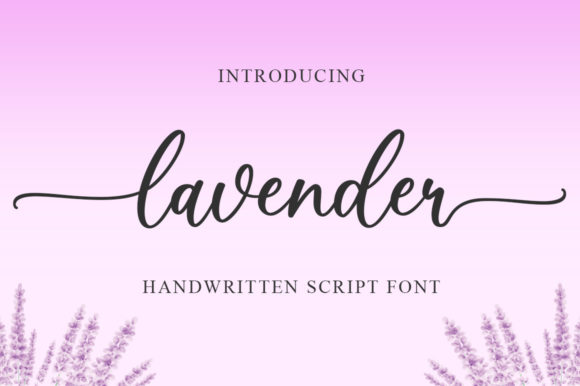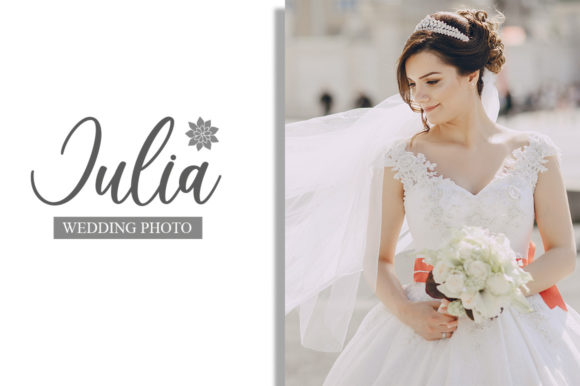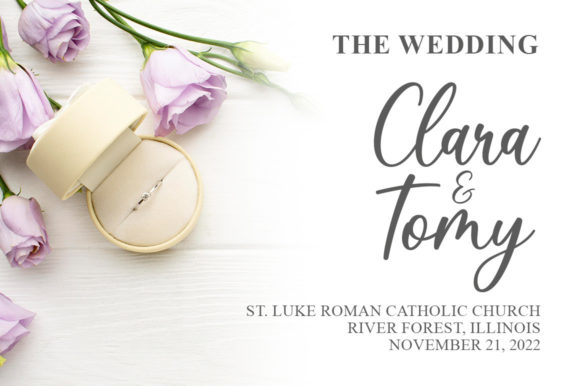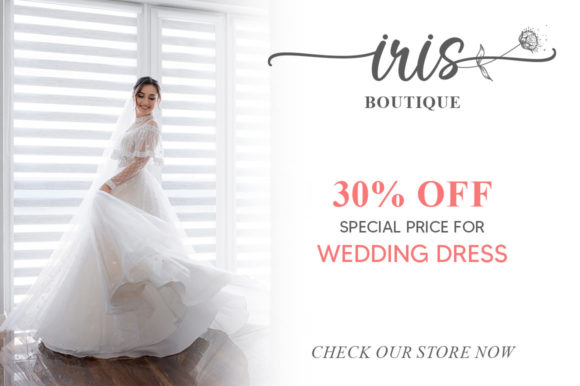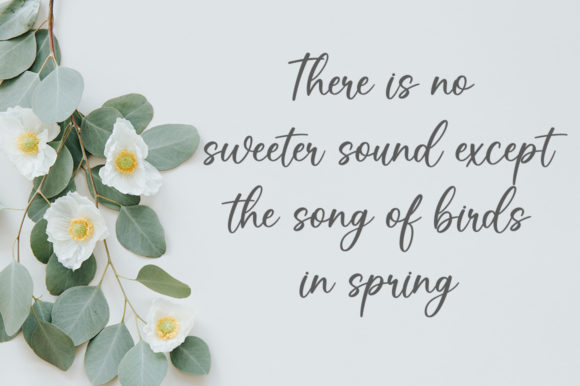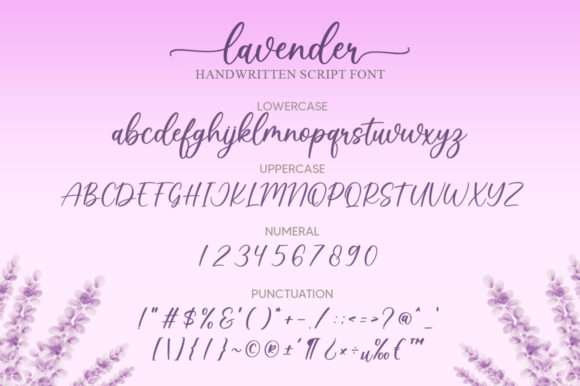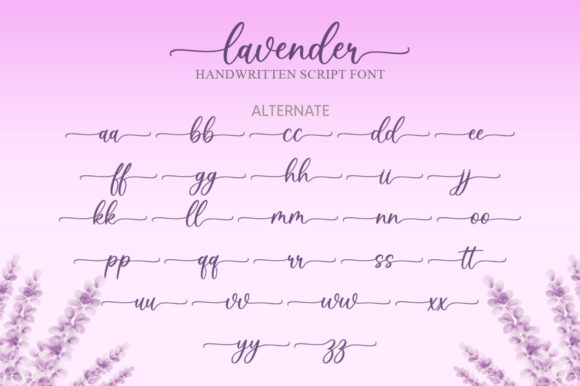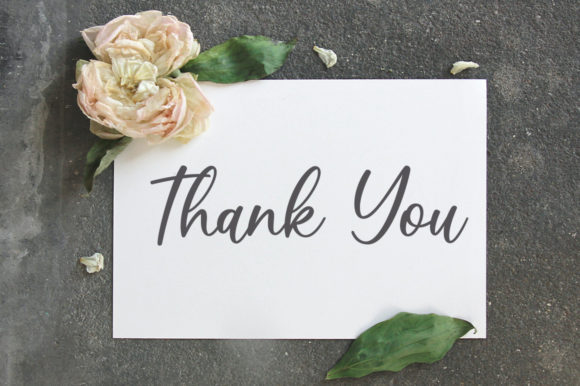
Lavender Font
About Lavender Font
“Lavender” is a delicate and elegant handwritten font that exudes a flowing and graceful vibe. With its beautifully balanced characters, this font is versatile and complements a wide range of design styles.
The font’s delicate strokes and elegant curves give it a sense of refinement and sophistication. Its flowing and graceful appearance makes it a perfect fit for various design applications, ensuring that it seamlessly harmonizes with different design contexts.
When incorporated into your designs, “Lavender” is sure to captivate attention. Its delicate and elegant nature adds a touch of class, enhancing the overall visual impact of your creations. Whether you’re working on branding, invitations, logos, or more, this font is designed to elevate the aesthetic and leave a lasting impression.
Moreover, “Lavender” is more than just a font—it’s a versatile tool that provides access to a wide range of glyphs and swashes through PUA encoding. This feature enables you to effortlessly enhance your designs with additional design elements, further personalizing your work and creating unique visuals.
In essence, “Lavender” is a font that embodies delicacy, elegance, and flow. Its balanced characters and PUA encoding make it a valuable asset for designers seeking to infuse their projects with a touch of sophistication and individuality.